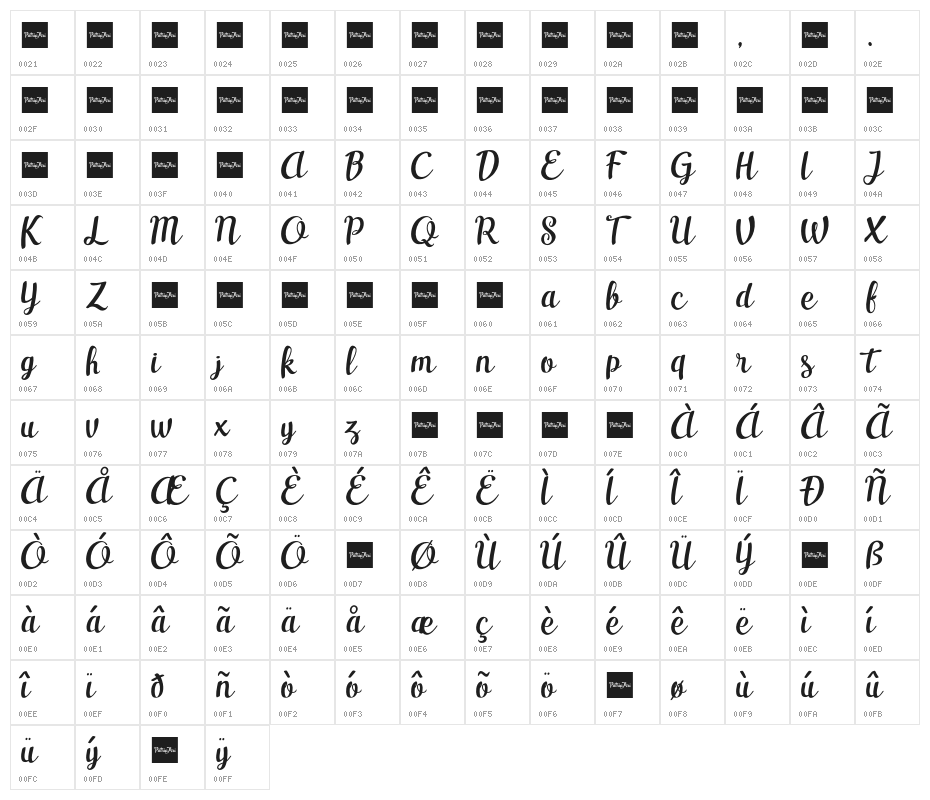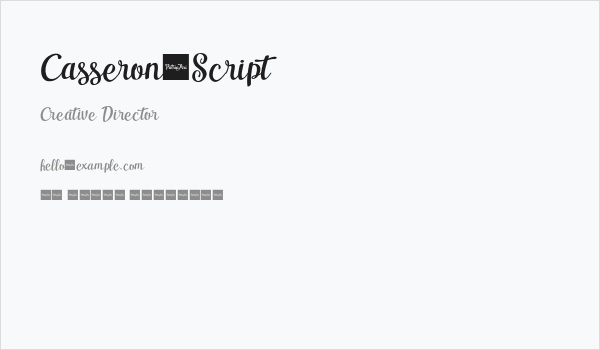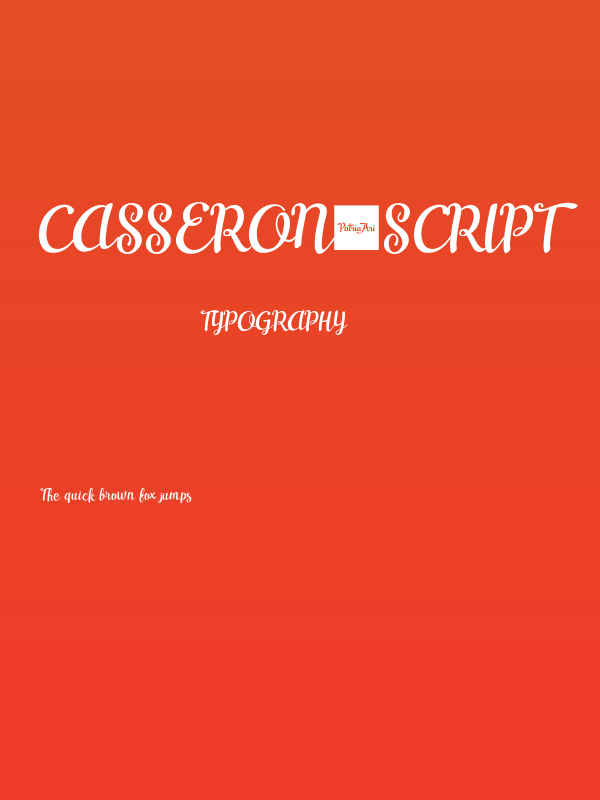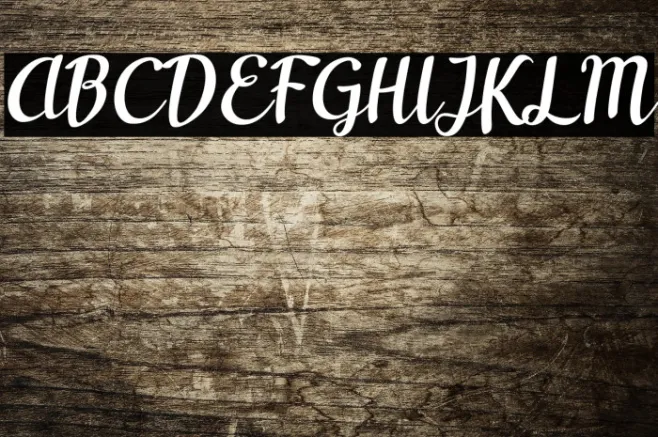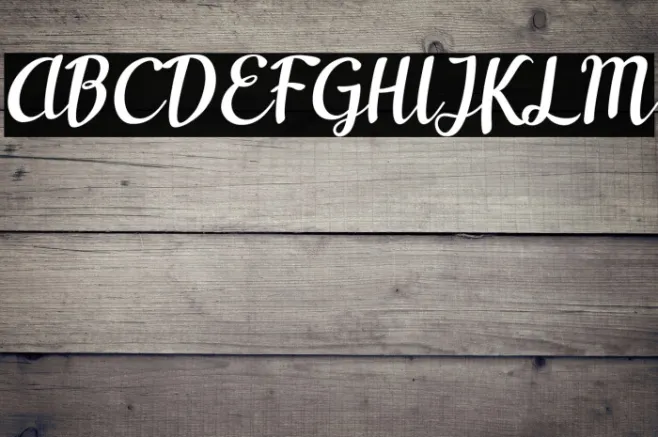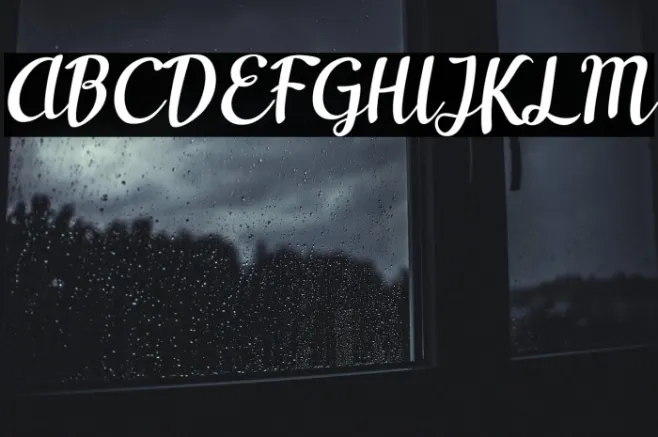
Casseron-Script Font
Casseron-Script Description
This font features a flowing, elegant script style with smooth, connected strokes that give it a handwritten appearance. The uppercase letters are bold and slightly slanted, while the lowercase letters maintain a consistent flow with graceful curves. The font's design is characterized by its fluidity and artistic flair, making it suitable for creative and expressive projects. The characters are well-balanced, with a moderate contrast between thick and thin strokes, enhancing its readability while maintaining a decorative appeal. This script font exudes a sense of sophistication and charm, perfect for adding a personal touch to any design.